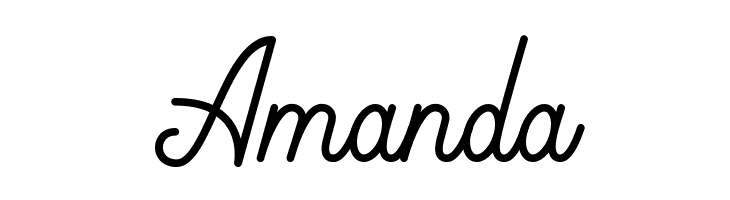
( Rigoletto )
A graceful script font with flowing, connected strokes and elegant flourishes.
A graceful script font with flowing, connected strokes and elegant curves.